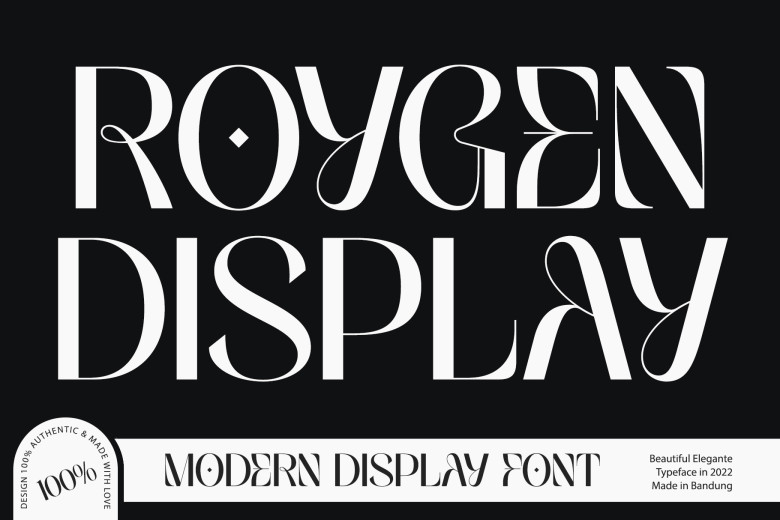
Roygen Display Font
Roygen Display is a very stylish and fashionable sans serif font, an embodiment of elegance and refinement. The name of this font makes it perfect for those who seek a beautiful and fresh look. It reads like a watershed: aquatic, pure and fresh, yet still mature and crisp.